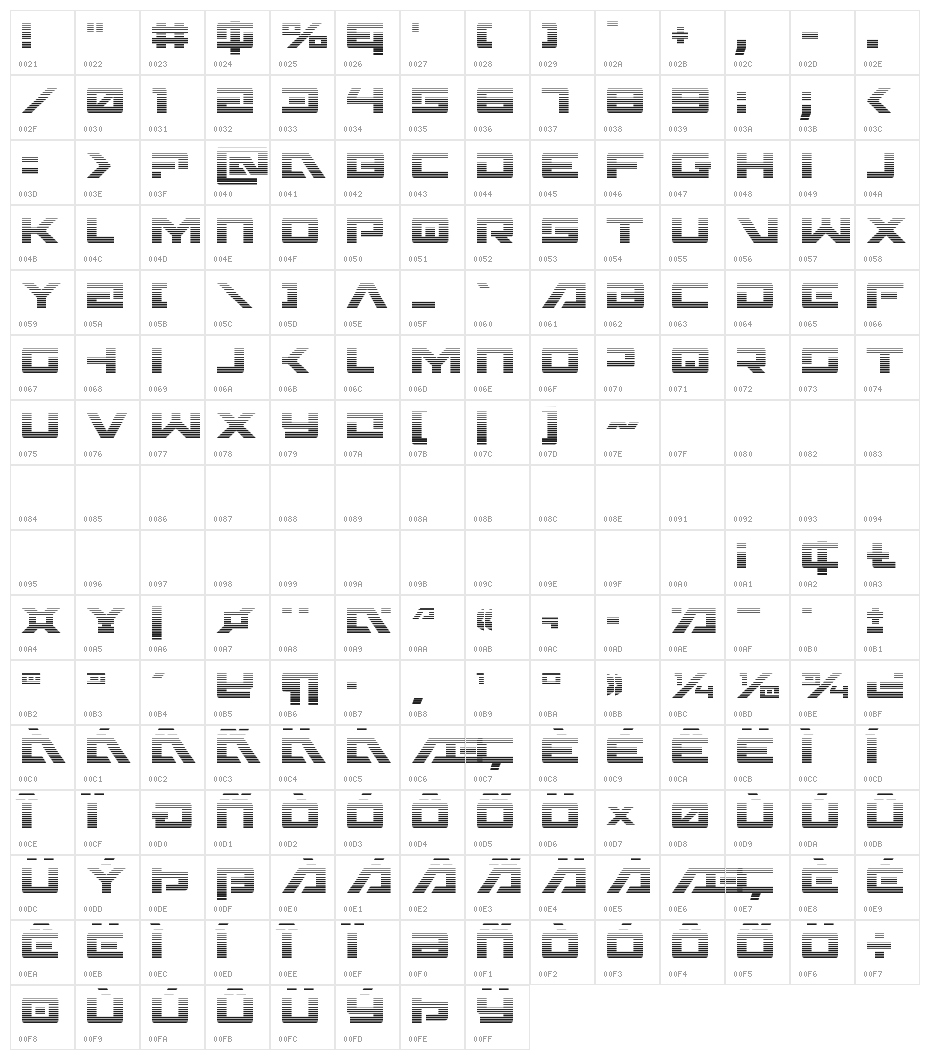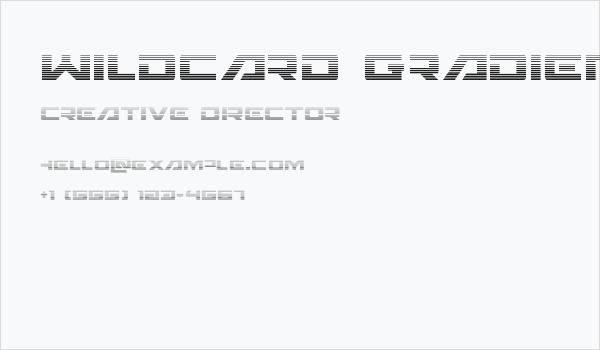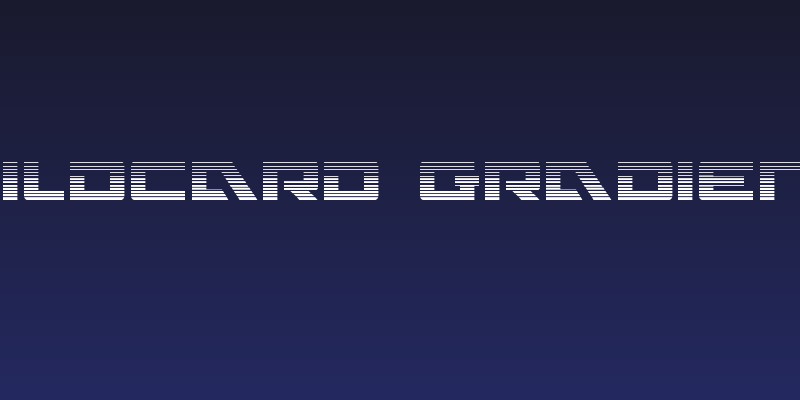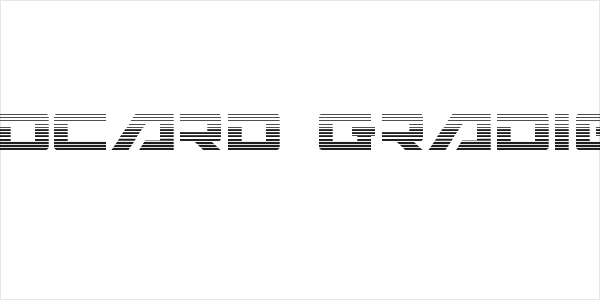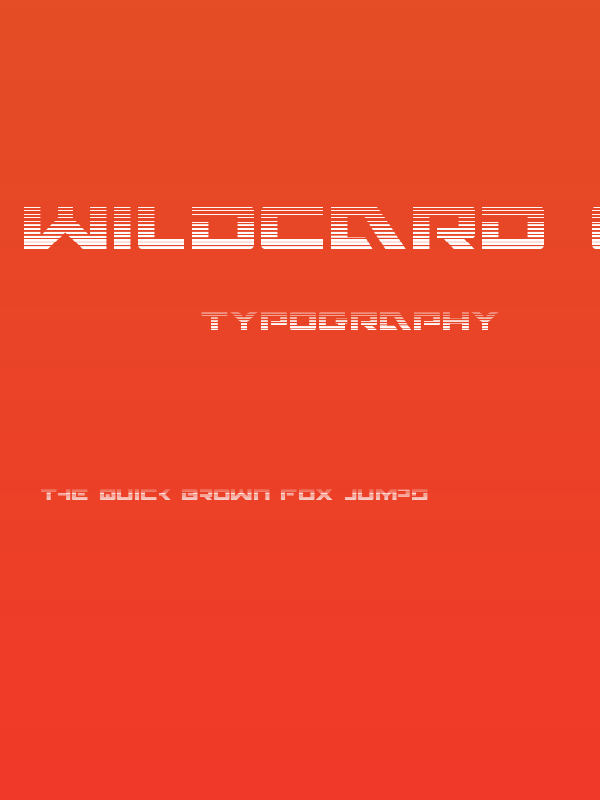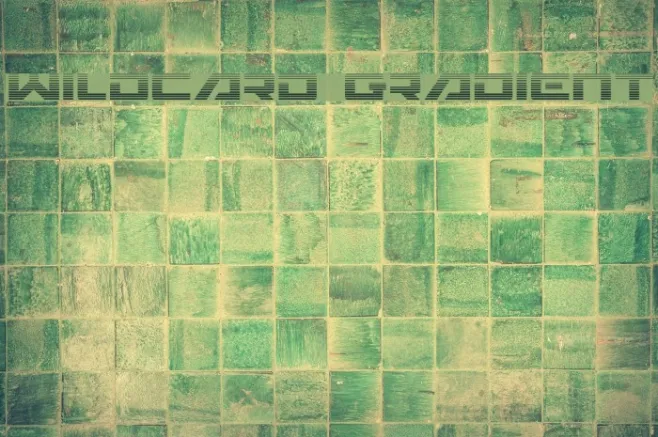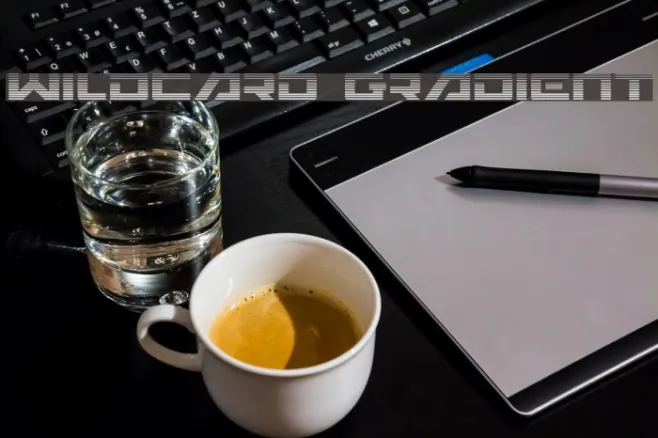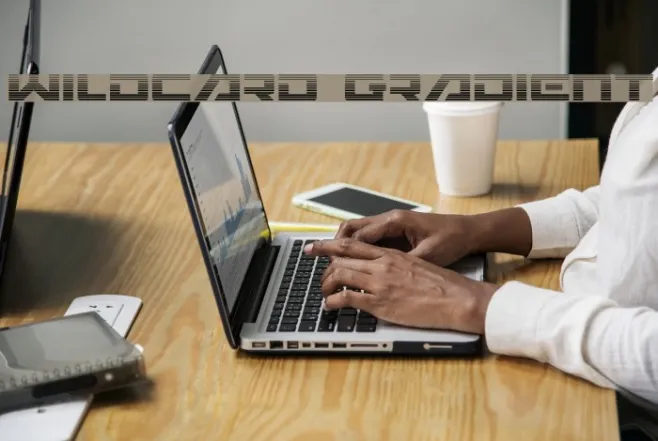
Wildcard Gradient Font
Wildcard Gradient Description
This font features a unique, futuristic design with a gradient effect created by horizontal lines. Each character is composed of multiple parallel lines that form the shape of the letter, giving it a dynamic and modern appearance. The uppercase and lowercase letters share a consistent style, with sharp angles and geometric forms. The numbers and special characters are designed to match the overall aesthetic, maintaining the same line-based structure. This font is visually striking and ideal for projects that require a bold, contemporary look.
| Proposed Projects | Ideal for sci-fi themed designs, technology branding, modern posters, and digital artwork. |